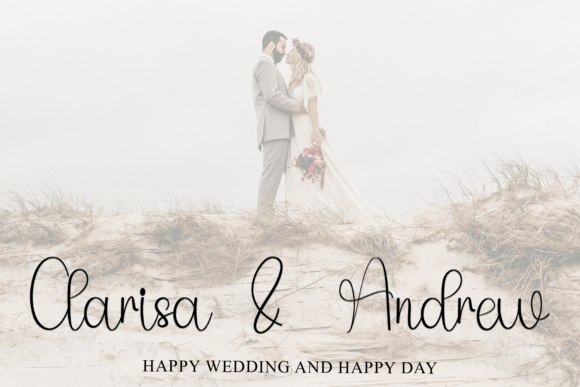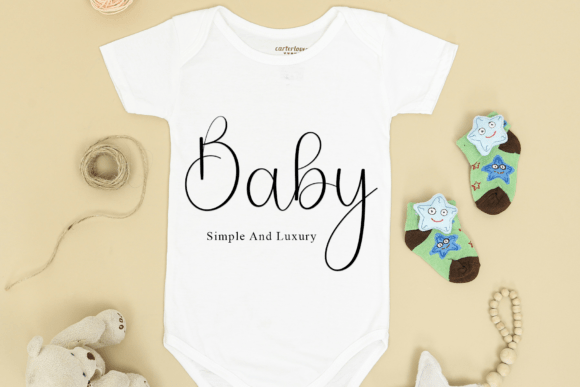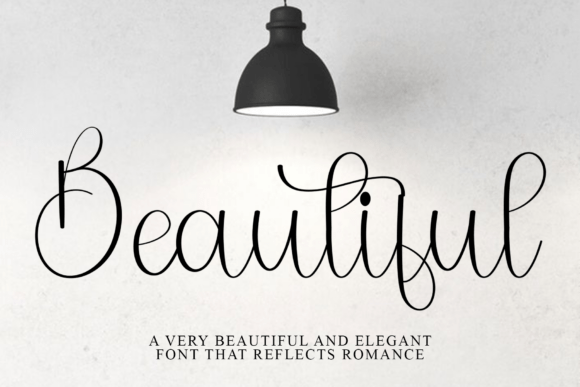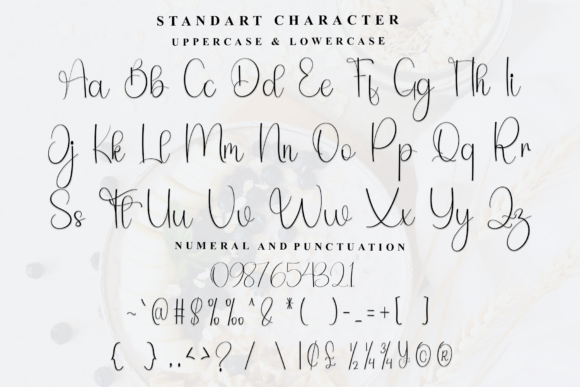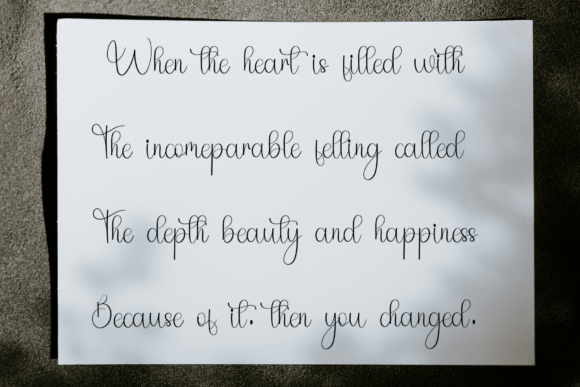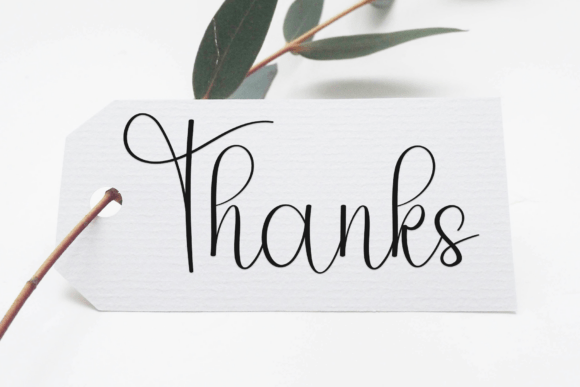
Introduction to Handmade Wedding Font
This elegant script font is designed with graceful swashes and fluid strokes that bring a touch of sophistication to every word.
Perfect for wedding invitations, branding, logos, and social media posts, it blends modern calligraphy with classic charm The stylish swashes add a romantic and artistic flair, making your text feel personal and luxurious.
Key Features of Handmade Wedding Font
Why Choose Handmade Wedding Font?
Handmade Wedding Font offers exceptional quality and versatility, making it a valuable addition to your design toolkit. Whether you’re creating for personal projects or commercial use, Handmade Wedding Font delivers professional results.